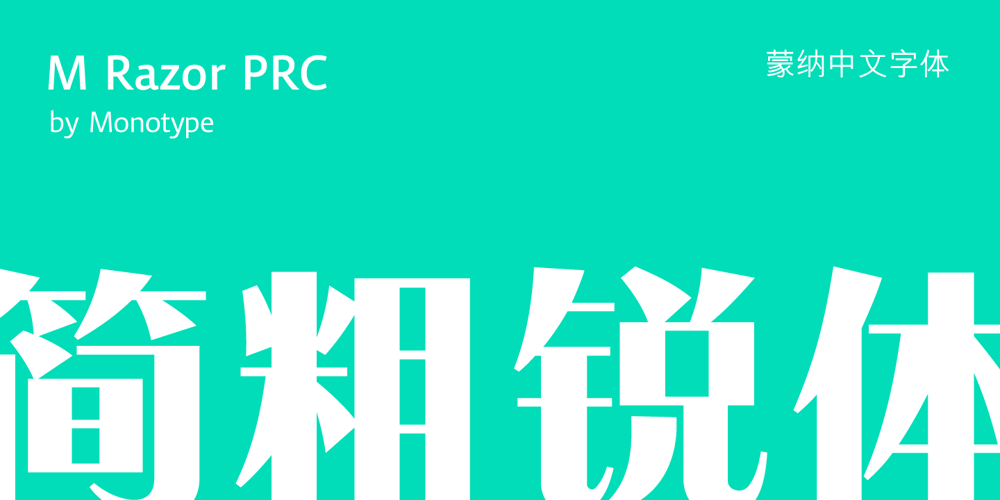
M Razor PRC Font Family was designed by Monotype HK Design and published by Monotype HK. M Razor PRC contains 1 styles and family package options. M Razor is so called “”neo Sung-style”” typefaces. Crossbars (橫) and stems (豎) are orthogonal and upright. Their entry and finial points are squarish, parallel without flare. Contrast of strokes is extremely high. This creates sharpness, stiffness in the midst of elegance of Sungti. Even distribution of space, careful positioning, size and proportion of radicals create a slightly expanded, opened and balanced construction. Zhonggong are slightly expanded, its relatively less inter-character spacing makes the line of text better coupled and aligned. Its features and construction create a feel of wholesome, elegance with contrasting sharpness and stiffness. It is best suited for casual, creative display eye-catching text, set upright (non-slanted), non-condensed.